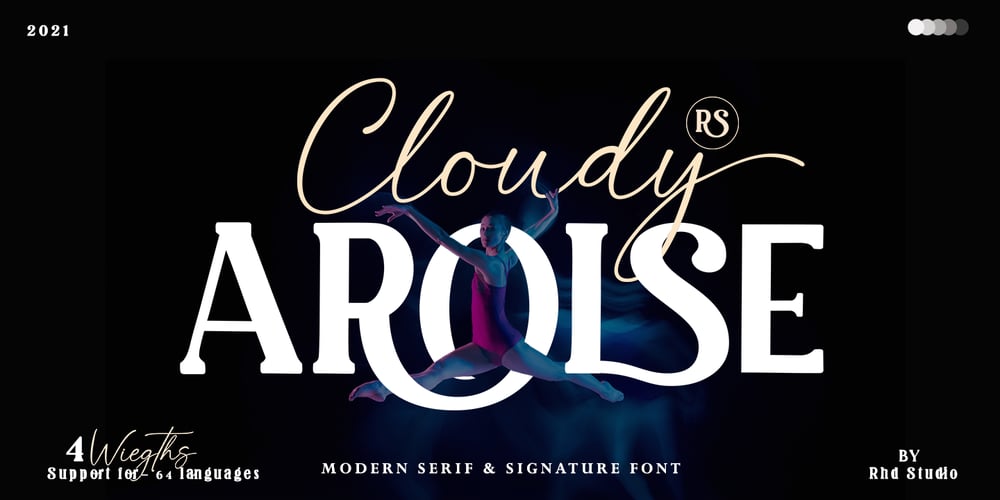
Cloudy Arolse Font Family was designed by Rahmad Rizky and published by Rhd Studio. Cloudy Arolse contains 4 styles and family package options. Is your branding missing something that makes people going WOW? Have you thought about how you can add that touch of magic to your branding and projects? What if we told you that we have solution to maximize your designs?Cloudy Arolse – A Sans Serif Font FamilyThis font is more than just another sans serif font. Cloudy Arolse is a package that will delight you. With elegance, passion, and dreamy look you’ll be sure to boost your sales and make best impressions. This font become more special with many weights option. You will get so many alternatives to maximize your design. Use it for headings, logos, business cards, printed quotes, invitations of all sorts, cards, packaging, and your website or social media branding.Our font always includes Multilingual Options to make your branding globally acceptable.Features:PUA EncodedNumerals and PunctuationThank you for downloading premium fonts from Rhd Studio